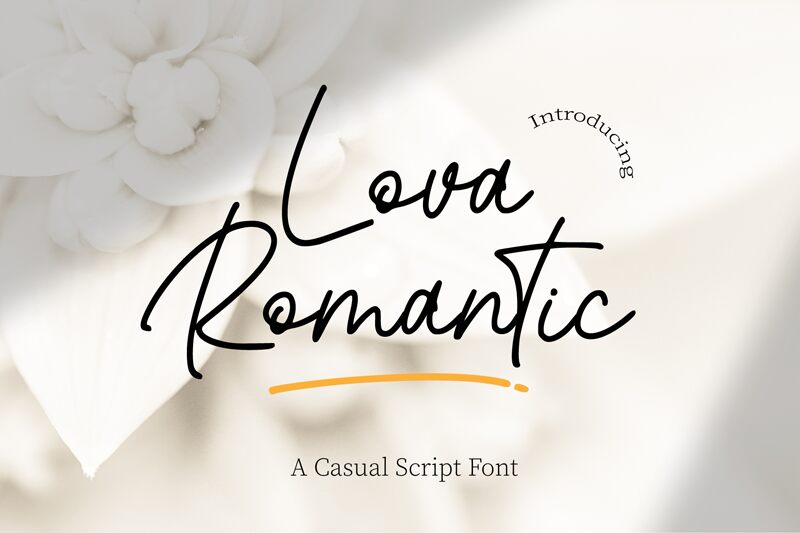
Lova Romantic font is a free handwritten font by Ibrahima Studio that channels informal elegance and a relaxed feel with its smooth flow and unique character design. The letters create a romantic atmosphere due to their casual sophistication while maintaining that sort of modern aesthetics that many look for in a font. So make your work come alive with this special take on typography and allow it to transform every design with its contemporary design and inviting ambiance.
This free font is a brilliant display font that can work as part of postcards, invitations, packaging, and other small items. However, its true nature and dazzling designs truly show when used for books covers, branding designs, and ads, whether they’re online or in printed form. The font is also excellent for social media users that engage with online platforms often thanks to its harmonious letter designs and playful style.